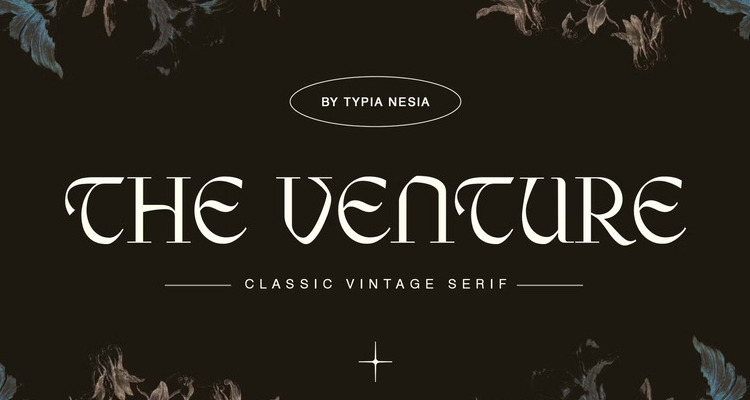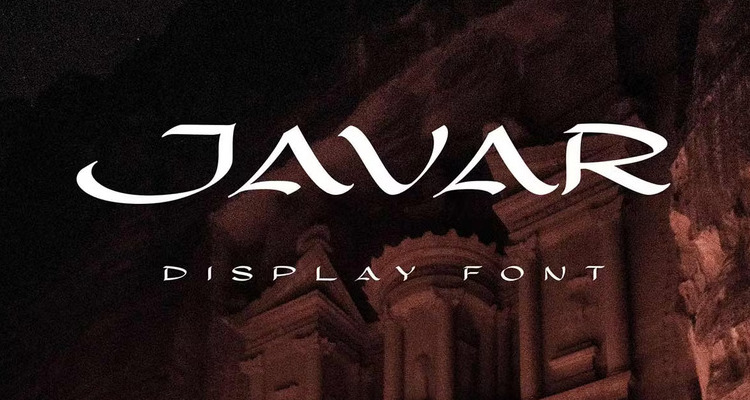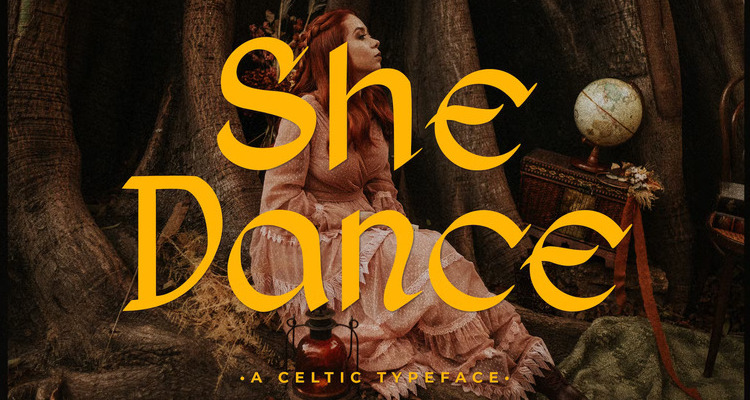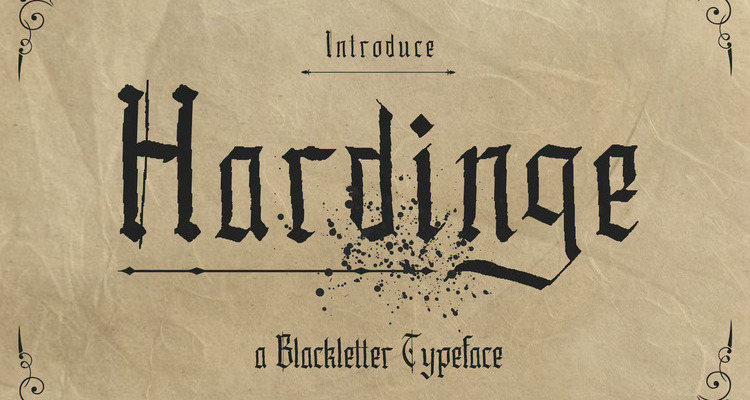
15+ Fonts Similar to Papyrus
What's up with the font Papyrus? In this article, we'll take a look at some similar fonts to Papyrus from Envato Elements. We'll also address some of the sentiment behind this popular yet controversial font.
Fonts Similar to Papyrus
1. Rosemary Handlettered Serif Font (OTF, TTF)
Rosemary is one of the fonts like Papyrus. This hand-drawn font has such a welcoming aesthetic. Note the variety in the stroke of each letter, not only in terms of jitter but also in the width.
2. Victorius Aged Ancient Font (OTF, TTF, WOFF)
This fun font departs from the usual Papyrus typeface looks, but it also plays with a historic or aged aesthetic. It can be a fun direction for specialty projects, like mobile gaming, logos, and more.
3. Odd Times Script Inspired Font (OTF, TTF)
This may not be your first option when looking for a font similar to Papyrus. But you could push even more towards a calligraphic aesthetic, as we see in this stylish typeface. It takes more influence from Blackletter but still lends itself to an aged aesthetic.
4. Chara Sans Serif & Serif Duo (Sans Fonts Like Papyrus) (OTF, TTF, WOFF)
If you're looking for clean, smooth fonts like Papyrus, try something like this one. This Papyrus font lookalike has serifs, but there's a sans serif option down below too. Give it a try!
5. Historia Font (Bold Papyrus Fonts Script) (OTF, TTF)
How about a font that's similar to the Papyrus typeface? This one really pushes the aged, historical look, and it's even more calligraphic without necessarily being a calligraphy font. It's definitely a top choice when it comes to fonts similar to Papyrus.
6. Scriptease Typeface: Brush Font (EOT, OTF, SVG, TTF, WOFF)
This typeface in the Papyrus range has some interesting curves, edges, and a calligraphic feel. Why not push that aesthetic further with a script typeface like this one? It has interesting angles and an aged feel. It makes the cut of fonts with the Papyrus classic vibe.
7. Avatar Display Font (Papyrus Font Download Like Avatar) (OTF, TTF)
This is one of the fonts similar to Papyrus with some Avatar inspiration, but it goes in a different direction. You still get some calligraphic influence without being a script. Give this stylized font a try. It's a fun take on a Papyrus font download.
8. Old Church Display Comic Papyrus Fonts (OTF)
Here's a great choice to download a Papyrus font lookalike. It's a clean font similar to Papyrus but smooth. You get some similar variation in the line width, as we'd see in hand-drawn type, but without the worn, textured edges.
9. SUPER: Handwritten Sans Serif Fonts Like Papyrus (OTF, TTF)
On the other hand, if you love texture and an organic vibe, check out this font in the Papyrus range. It takes the hand-drawn aesthetic much further and has a lot of interesting variety and texture.
10. Magalon Display Font (Like the Papyrus Typeface) (OTF, TTF, WOFF)
Isn't this display font fun? It's a typeface in the Papyrus spectrum. It's farther from it, but it still has a rather ancient and aged feel to it. It could work well for scenarios where you need historical fonts with the Papyrus style.
11. Obsypac Font (Fonts Like Papyrus But Smooth) (OTF, TTF)
This is a font with a Papyrus vibe. It has a vintage look and feel, as well as some stylish variety in the line work. It doesn't have texture, but it could be a perfect choice if you're looking for a smooth font similar to Papyrus.
12. Regolith Font (Aged Fonts Like Papyrus) (OTF, TTF)
Here's a really fun, bold, and aged font similar to the Papyrus typeface. It comes with a bunch of really awesome bonus items included. Want to create an ancient look? Try this unexpected twist on a Papyrus font download.
13. Velociraptype Script Brush Font (OTF)
Or push even more towards that visually interesting calligraphic look with a script, brush font like this one. It's an eye-catching typeface with the Papyrus style. It has some really interesting angles and peaks that could work well in a number of projects.
14. Hand Writer (Handwriting Inspired Bold Papyrus Fonts) (OTF, TTF)
If you love an aged, handwritten look, try this download of a papyrus font lookalike. The shapes are very different from Papyrus, but it has that similar weathered, textured look.
15. Rustic Station Handwriting Brush Typeface (OTF, TTF)
Some just create fonts with Papyrus in mind, and this seems to be the case. Push the curves and visible stroke variation further with this handwriting font. It has that calligraphic influence without being a calligraphy font. It's also got a really memorable look.
What Is the Papyrus Font?
Papyrus is a widely available font, which is likely why so many people are familiar with it. Many of us didn't need to download the Papyrus font, since it was already installed on our computers. The Papyrus fonts have been around over 30 years old and have often been included, by default, with both Microsoft and Apple products.